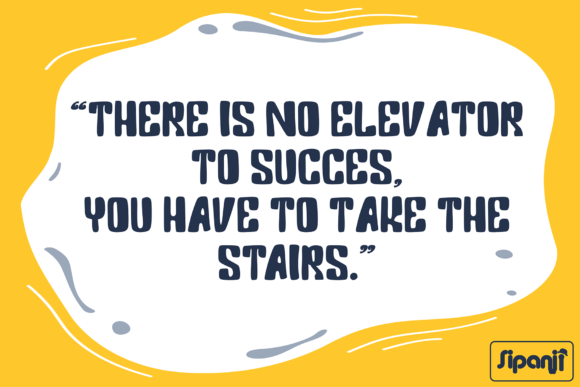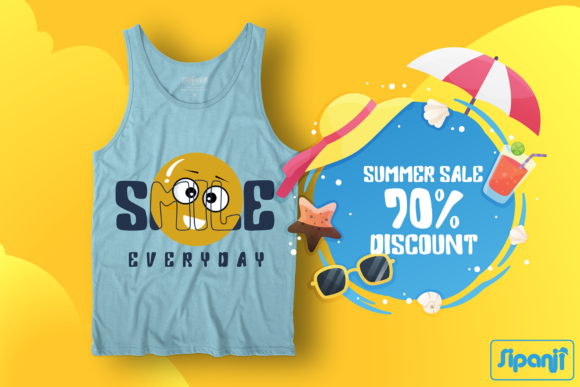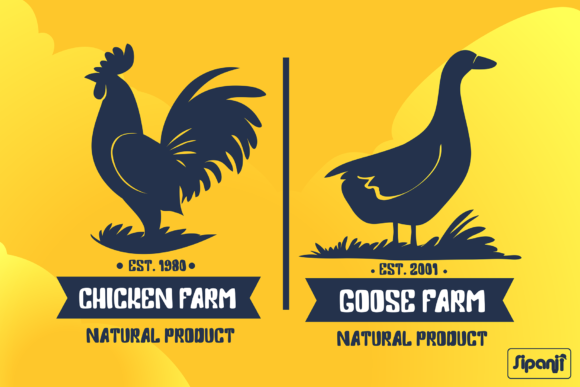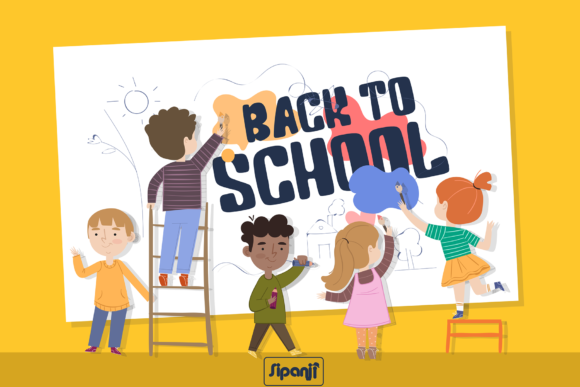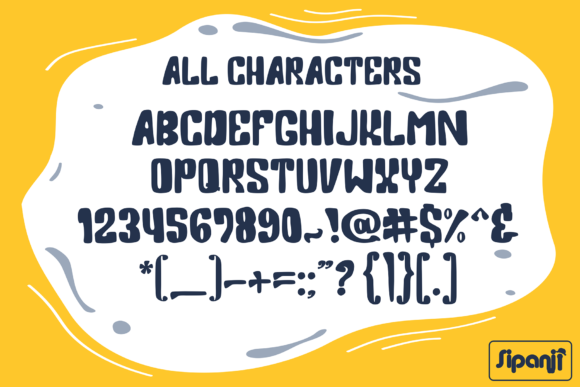
Dance Kitty Font: Unleash Your Creativity with this Bold and Cute Display Font
Are you a designer, crafter, or DIY enthusiast looking for a unique and playful font to add some personality to your projects? Look no further than the Dance Kitty Font! This bold and cute display font is sure to inspire your creativity and take your designs to the next level.
What is Dance Kitty Font?
Dance Kitty Font is a modern and eye-catching display font that is perfect for a variety of creative projects. Its unique feel and playful vibe make it ideal for designs that require a touch of whimsy and fun. Whether you’re working on a logo, poster, invitation, or social media graphic, Dance Kitty Font is sure to add a dash of personality and style.
Key Features of Dance Kitty Font
- Bold and Cute: Dance Kitty Font is a bold and cute display font that is sure to grab attention.
- Unique Feel: Its unique feel sets it apart from other fonts and makes it perfect for designs that require a touch of personality.
- Playful Vibe: The font has a playful vibe that is sure to add a dash of fun and whimsy to your designs.
- Versatile: Dance Kitty Font is versatile and can be used for a variety of creative projects, from logos and posters to invitations and social media graphics.
Dance Kitty Font is perfect for designers and crafters who are looking for a unique and playful font to add some personality to their projects. Here are a few ideas to get you started:
- Party Invitations: Use Dance Kitty Font to create fun and playful party invitations that are sure to get your guests excited.
- Social Media Graphics: Add a touch of personality to your social media graphics with Dance Kitty Font.
- Logos and Branding: Use Dance Kitty Font to create a bold and eye-catching logo that sets your brand apart.
- DIY Crafts: Use Dance Kitty Font to add a personal touch to your DIY crafts, such as handmade cards and gift tags.
Dance Kitty Font is a bold and cute display font that is sure to inspire your creativity and add a touch of personality to your designs. With its unique feel and playful vibe, it’s perfect for designers, crafters, and DIY enthusiasts who are looking for a font that stands out from the crowd. So why wait? Download Dance Kitty Font today and start creating!